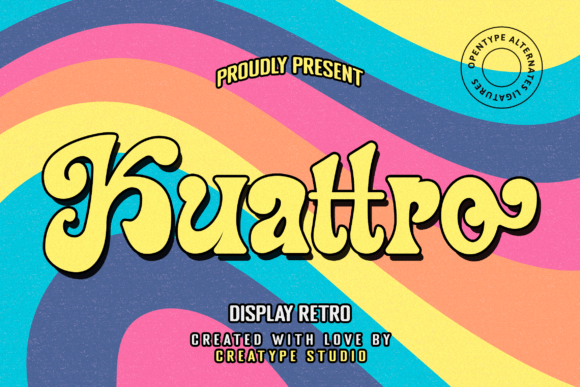
Introducing Kuattro Font, the ultimate retro typeface designed to bring a touch of fun and vintage vibes to your projects! Created by CreatypeStudio, this font is a game-changer when it comes to adding that extra wow factor to your designs.
With its pop colors and magnificent appearance, Kuattro is the perfect choice for branding projects, logos, wedding designs, social media posts, advertisements, and any project that requires a unique and eye-catching handwriting taste. Its versatility knows no bounds, making it an essential tool for anyone looking to stand out in the competitive business world.
One of the standout features of Kuattro Font is its PUA encoding, which grants you effortless access to all the glyphs and swashes. This means you can unleash your creativity without any limitations, adding those artistic flourishes and personal touches that will set your work apart from the rest.
Whether you're a graphic designer, freelancer, or business professional, Kuattro Font is a must-have addition to your creative arsenal. Its captivating and timeless design will leave a lasting impression on your audience, making it a valuable asset for anyone looking to create memorable branding materials or design stunning resumes.
Why settle for ordinary fonts when you can elevate your designs with Kuattro? Embrace the power of this retro typeface and let it transport your projects to a whole new level. Its vibrant and expressive nature will evoke emotions and connect with your audience on a deeper level.